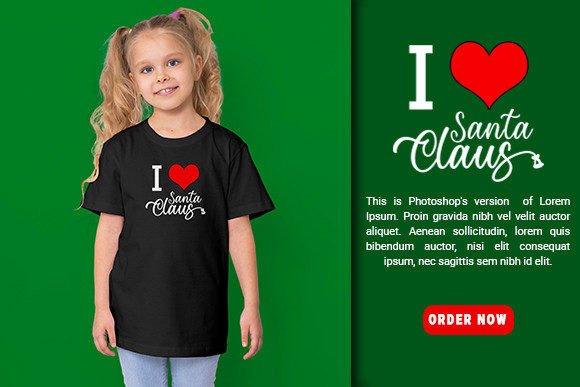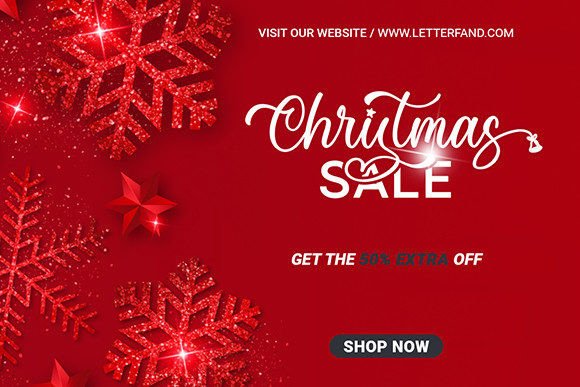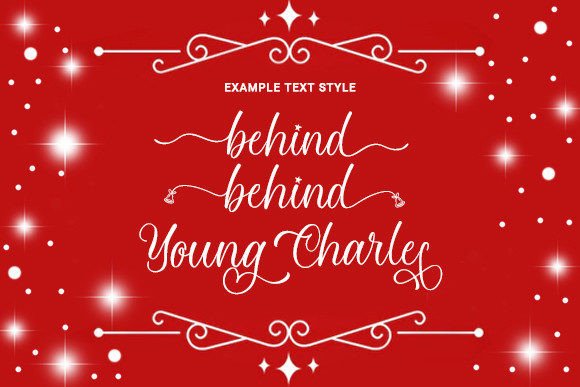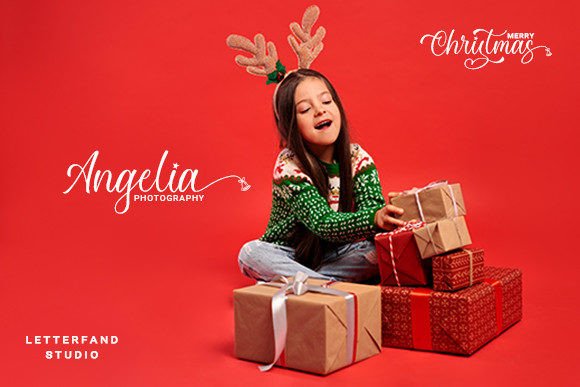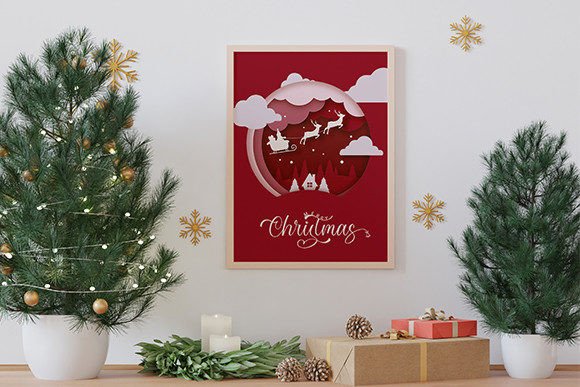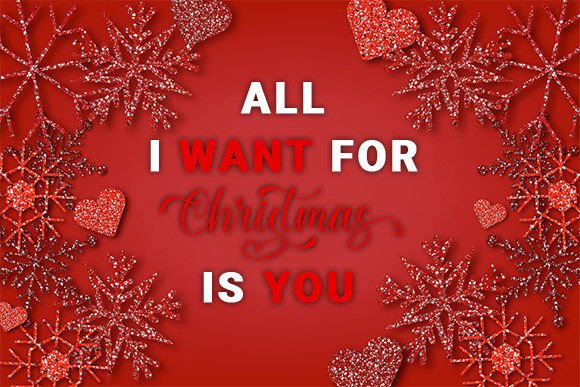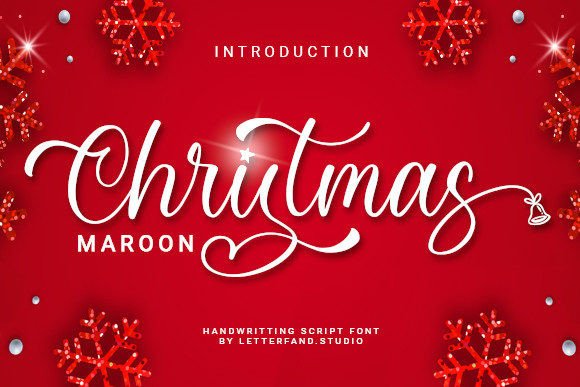
Introducing Christmas Maroon Font: The Ultimate Modern Handwritten Font for Designers
Are you looking for a font that can elevate your designs to the next level? Look no further than Christmas Maroon Font, a thin handwritten font that is taking the design world by storm. With its modern style and luxurious appearance, this font is perfect for designers who want to create stunning visuals that capture attention.
What is Christmas Maroon Font?
Christmas Maroon Font is a type of font that has gained immense popularity among designers today. Its unique blend of modernity and elegance makes it an ideal choice for a wide range of design projects. Whether you’re working on a book cover, logo, advertisement, or social media post, this font is sure to make your designs look perfect and attractive.
Key Features of Christmas Maroon Font
So, what makes Christmas Maroon Font so special? Here are some of its key features:
- Thin Handwritten Style: Christmas Maroon Font boasts a beautiful, thin handwritten style that adds a touch of elegance to any design.
- Modern and Luxurious Appearance: This font has a modern and luxurious appearance that makes it perfect for high-end designs.
- Versatile: Christmas Maroon Font is suitable for a wide range of design projects, including book covers, logos, advertisements, magazines, and more.
- Supports Multiple Languages: This font supports multiple languages, making it a great choice for designers who work with international clients.
Use Cases for Christmas Maroon Font
Christmas Maroon Font is an incredibly versatile font that can be used for a wide range of design projects. Here are some use cases where this font shines:
- Advertising Text: Use Christmas Maroon Font to create eye-catching advertising text that grabs attention.
- Book Covers: This font is perfect for book covers, especially for fiction and non-fiction books that require a touch of elegance.
- Logos: Create stunning logos for your brand or client’s brand using Christmas Maroon Font.
- Mockups: Use this font to create beautiful mockups for your designs.
- Watermark: Add a touch of elegance to your watermarks with Christmas Maroon Font.
- Magazines: This font is perfect for magazine designs, especially for headings and titles.
- Food Designs: Use Christmas Maroon Font to create stunning food designs that look appetizing.
- Products: Create beautiful product designs using this font.
- Headers: Use Christmas Maroon Font to create stunning headers for your website or blog.
- Coffee Logos: This font is perfect for coffee logos and branding.
- Brands: Create stunning brand identities using Christmas Maroon Font.
- Films: Use this font to create beautiful film posters and titles.
- Columns: Use Christmas Maroon Font to create stunning columns for your designs.
- Videos: This font is perfect for video titles and subtitles.
- Imagination: Let your imagination run wild and create stunning designs using Christmas Maroon Font.